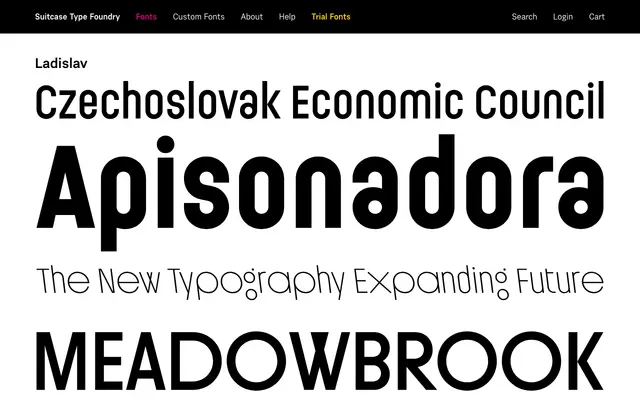
A humanist sans from Prague-based Suitcase Type Foundry, likely drawing on Central European typographic tradition.
Ladislav is a humanist sans-serif from Suitcase Type Foundry, a Czech foundry with a strong grounding in Central European type culture. The name evokes a lineage connected to Czech typographic history. Limited information is available from the scraped page, but the foundry's broader catalogue favours clean, text-oriented designs suited to editorial and corporate use.
The name Ladislav likely references Czech typographic heritage; without further detail the general construction and foundry context suggest a humanist sans-serif.